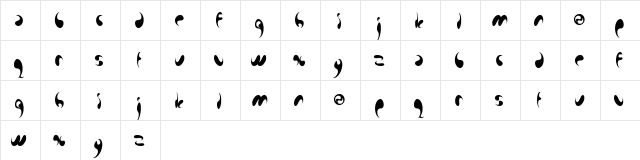
bangyang Regular
Design Context for bangyang Typeface
bangyang is a composed and adaptable typeface that performs quietly and consistently across a wide range of design contexts.